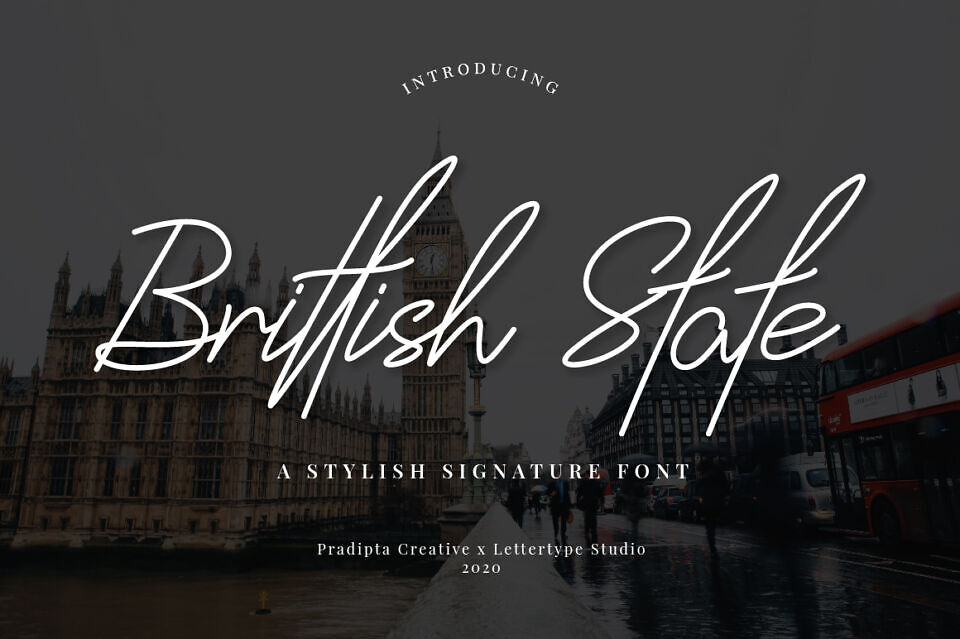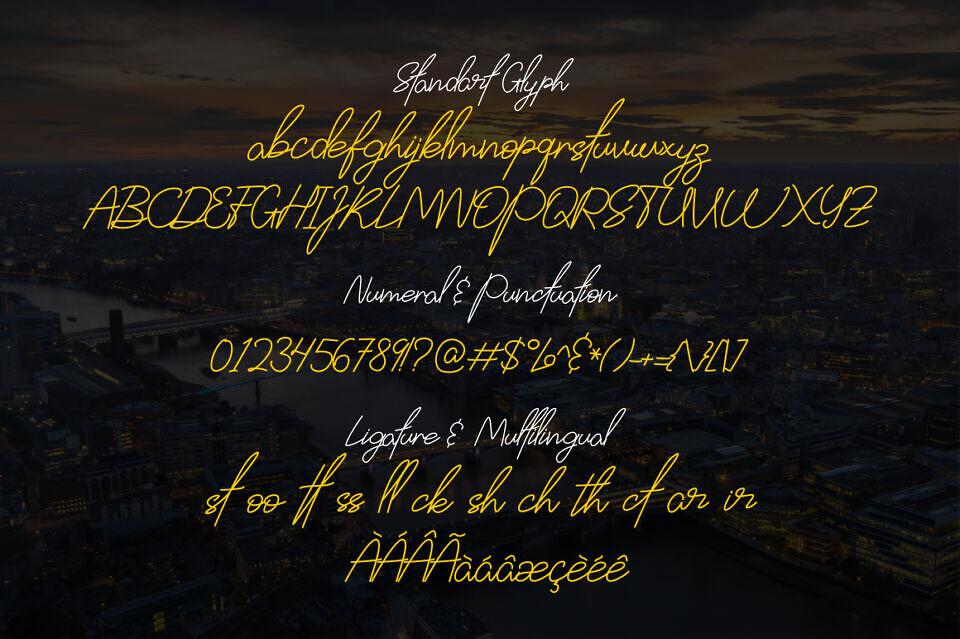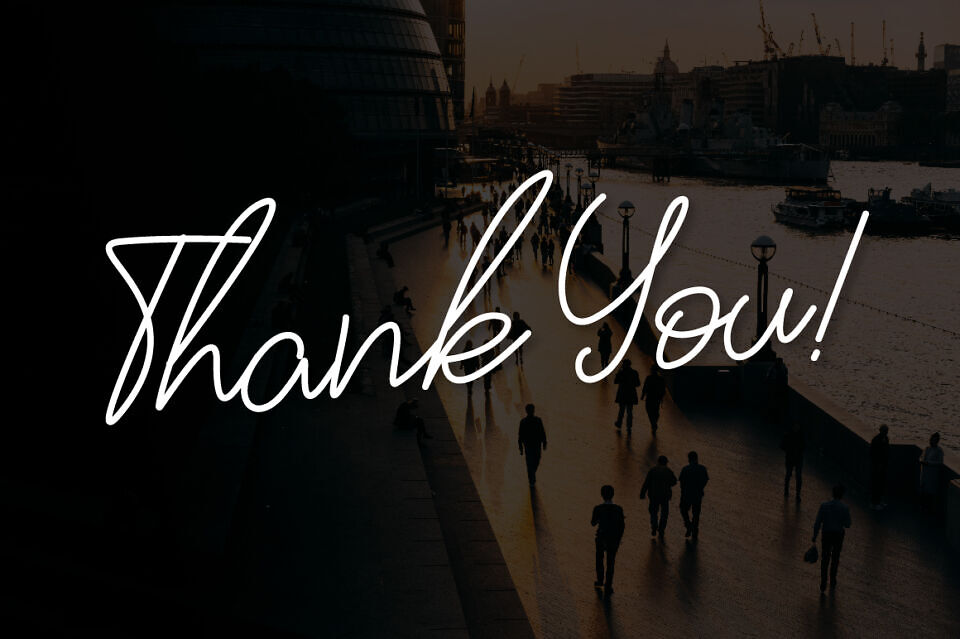
The British State Script font by Pradipta Creative and Lettertype Studio is a stylish, natural handwritten font with elegant curves, perfect for adding a personal touch to any design.
Its beautiful curves in every corner create a seamless flow, making it ideal for projects needing a personal, sophisticated touch. With support for numerals, punctuation, ligatures, and multilingual characters, this font is versatile for various design needs. Whether for invitations, branding, or creative displays, British State Script adds a refined, handcrafted charm that elevates any composition with its graceful, flowing style.